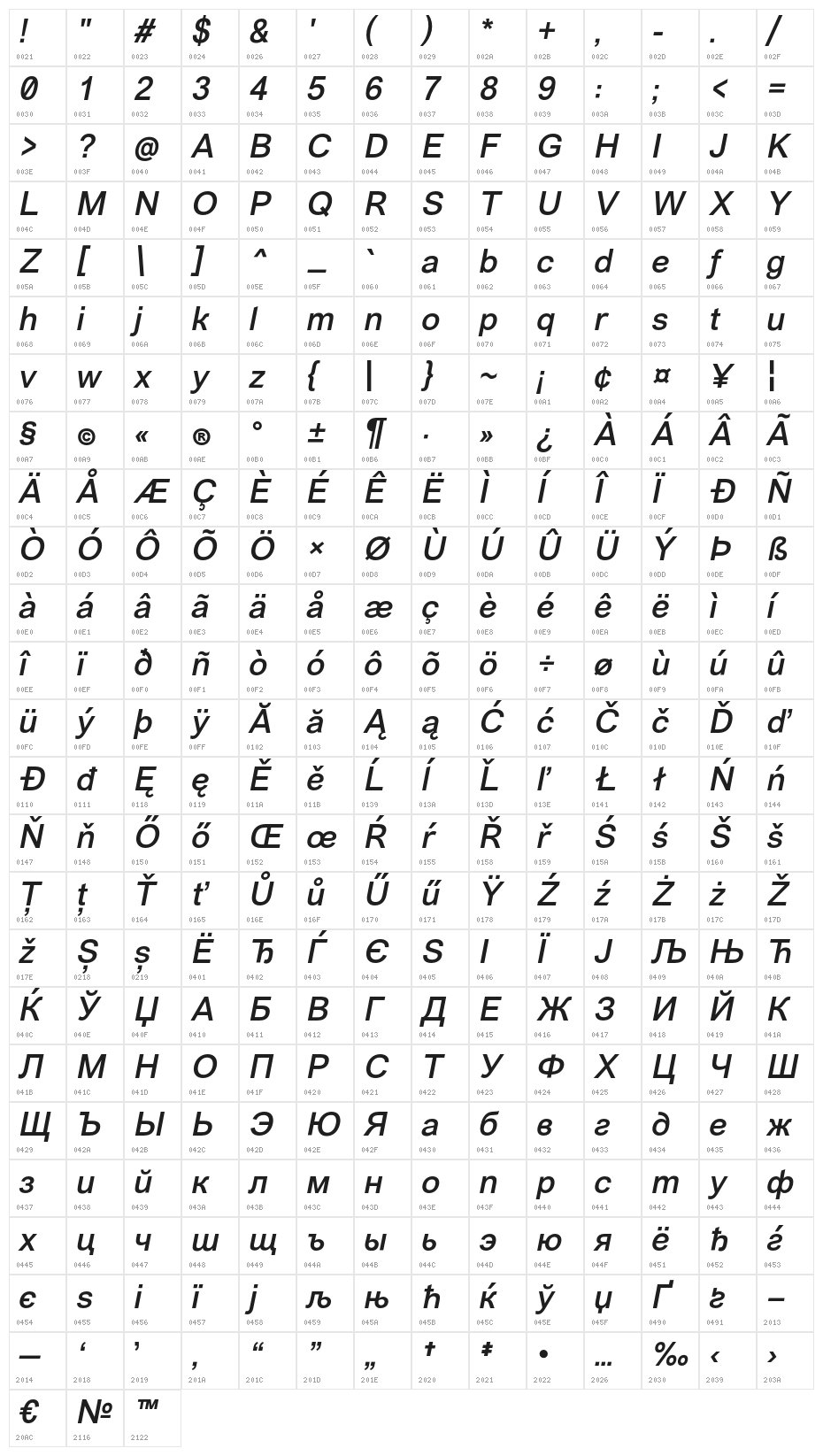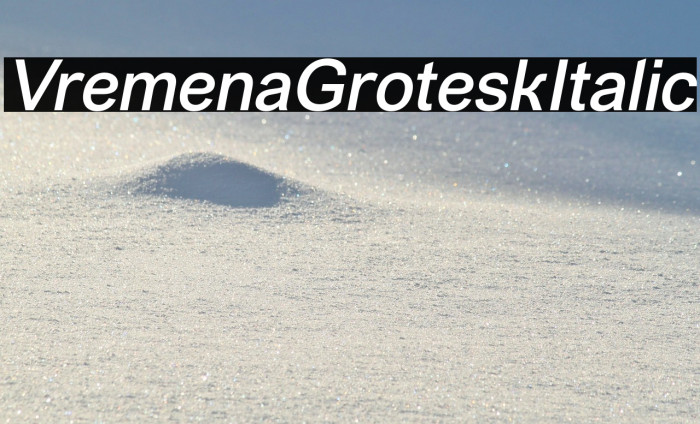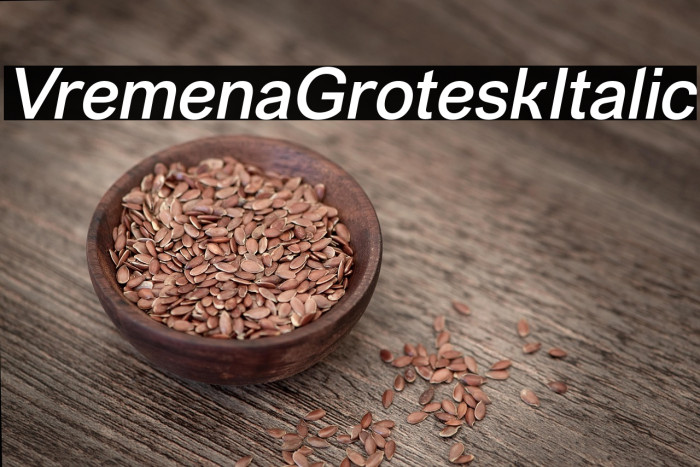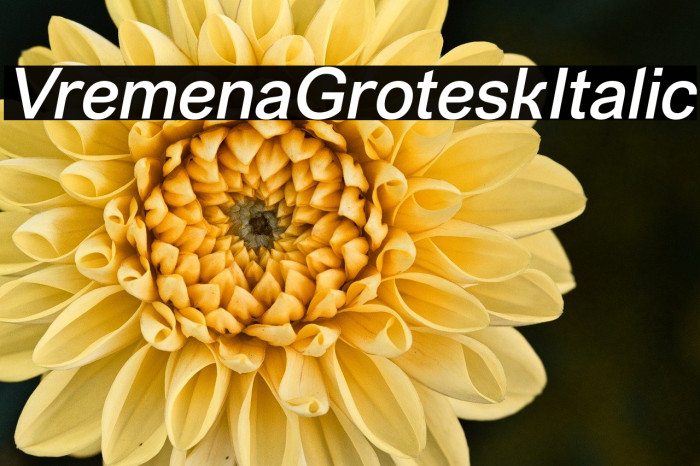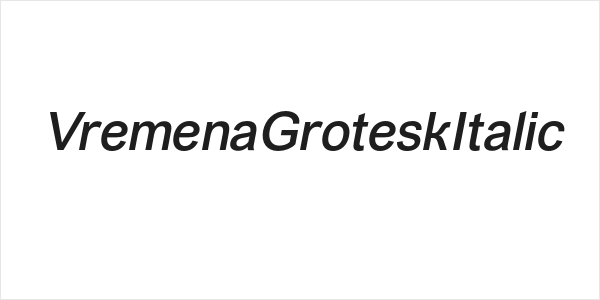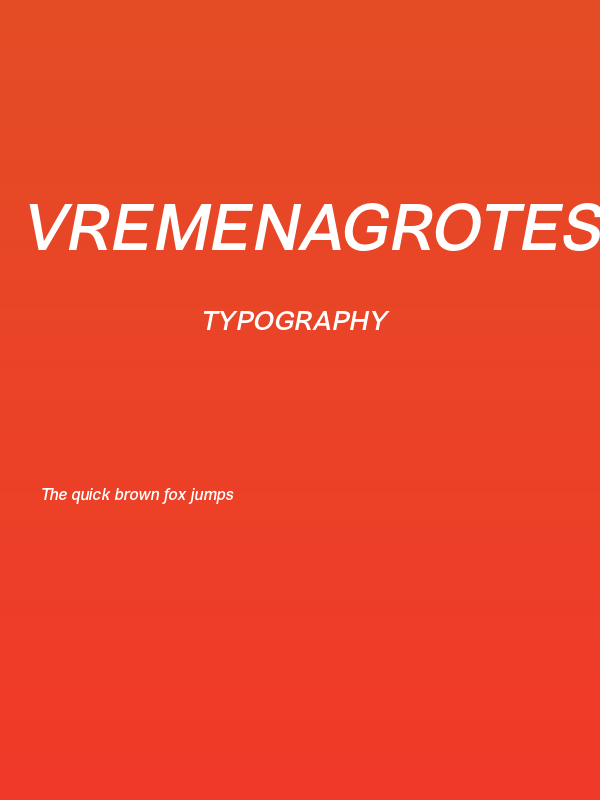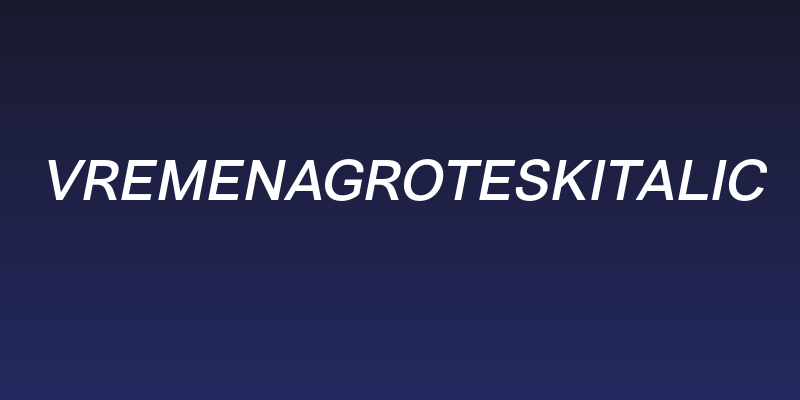
VremenaGroteskItalic Font
VremenaGroteskItalic Description
This font features a sleek and modern design with a slight slant, giving it an italicized appearance. The characters are clean and well-defined, with a consistent stroke width that provides a uniform look. The uppercase letters are bold and commanding, while the lowercase letters maintain a smooth and flowing style. The numerals are clear and easily distinguishable, making them suitable for various applications. Special characters are included, offering versatility for different uses. The overall style is contemporary, making it ideal for projects that require a modern and professional touch.
| Proposed Projects | Ideal for branding, advertising, digital media, and editorial design. |